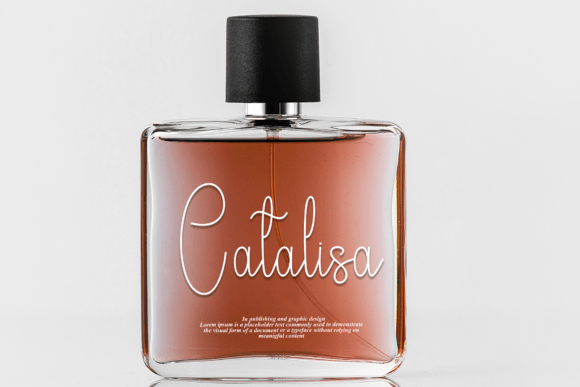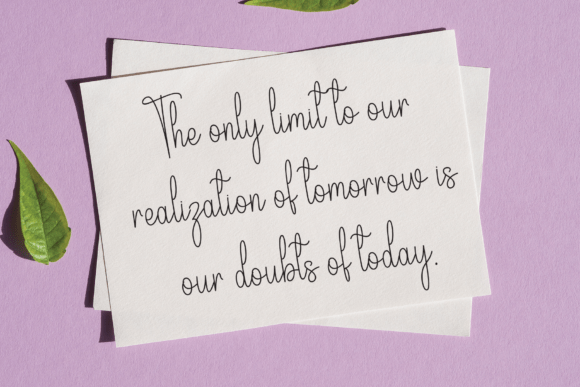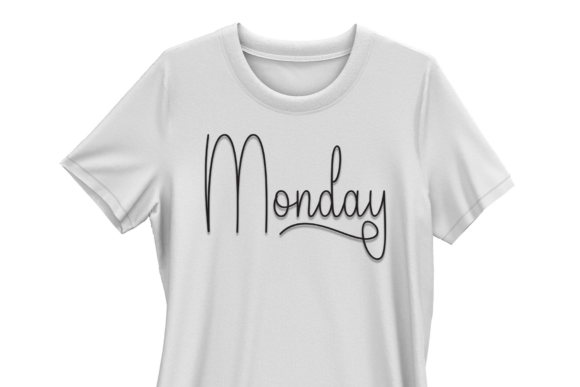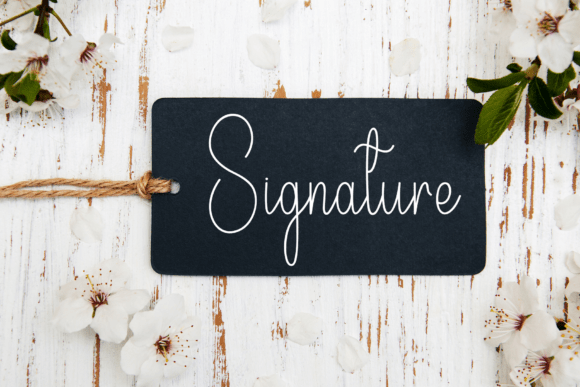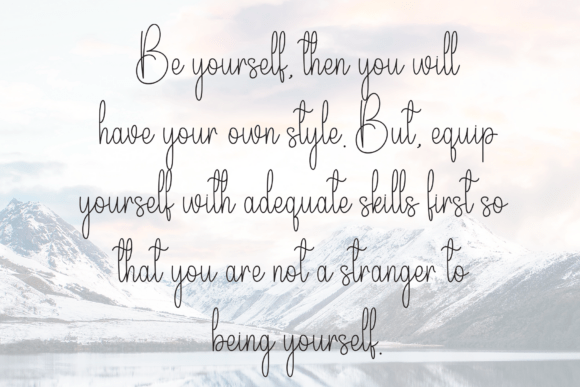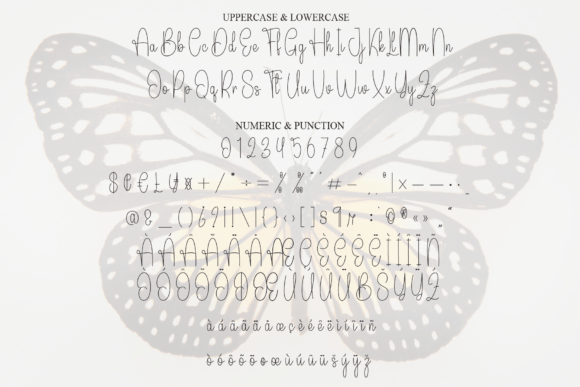
Unleash Your Creativity with the Butterfly Font
There’s nothing quite like the rush of inspiration that comes with a blank canvas and a spark of creativity. You’re brainstorming ideas, flipping through design inspiration, and suddenly, a vision starts to take shape. You see a beautiful, handwritten script that perfectly captures the essence of your project – and that’s where the Butterfly Font comes in.
This charming typeface is designed to add a touch of modern elegance and playfulness to any design. With its fluid strokes and charming curves, the Butterfly Font is ideal for logos, packaging, and invitations. Its versatility and unique character make it a valuable tool for designers looking to add warmth, sophistication, and creativity to their projects.
Whether you’re a seasoned pro or just starting out, the Butterfly Font is sure to inspire and delight. Its beauty lies in its simplicity, making it the perfect choice for any project that needs a personal touch.
Key Features of Butterfly Font
- Unique Characteristics: Features a delicate, whimsical design with intricate details and subtle flourishes, making it ideal for creative and artistic applications.
Butterfly Font Review
At first glance, the Butterfly Font is a whimsical, hand-drawn font that exudes a sense of playfulness and elegance ✨. The unique combination of rounded and pointed shapes creates a visually appealing aesthetic that’s perfect for creative projects and branding materials.
The font’s versatility shines through in its various weights, from light to bold, allowing designers to achieve a range of moods and atmospheres ✨. The font’s rounded edges and flowing lines also make it an excellent choice for designs that require a sense of movement and fluidity.
However, the Butterfly Font also has its limitations ⚠️:
- Limited character set: The font’s character set is not as extensive as some other fonts, which may be a drawback for designers who need to use a wide range of special characters.
- Not ideal for small text: Due to its playful and decorative nature, the Butterfly Font may not be the best choice for small text, as it can become difficult to read.
Overall, the Butterfly Font is a beautiful and versatile font that’s perfect for designers who want to add a touch of whimsy and elegance to their projects ✨. While it may have some limitations, it’s a great choice for creative projects and branding materials.
Butterfly Font Practical Application Guide
The Butterfly Font is ideal for creating whimsical and playful designs, such as children’s books, party invitations, and wedding stationery. It’s also great for adding a touch of elegance and sophistication to your designs, such as in wedding invitations, menus, and branding materials.
Remember to experiment with different font sizes, colors, and styles to get the most out of the Butterfly Font. You can also pair it with other fonts to create a unique and eye-catching design.